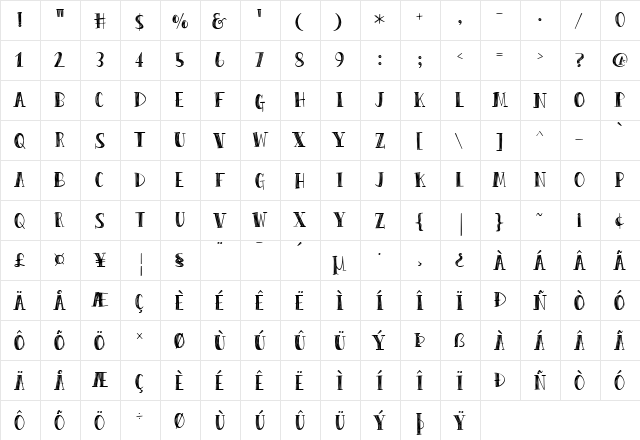
Peas & Carrots Regular
| Foundry | Brittney Murphy |
| Designer | Brittney Murphy |
Design Context for Peas & Carrots Typeface
Peas & Carrots is a composed and adaptable typeface that performs quietly and consistently across a wide range of design contexts.